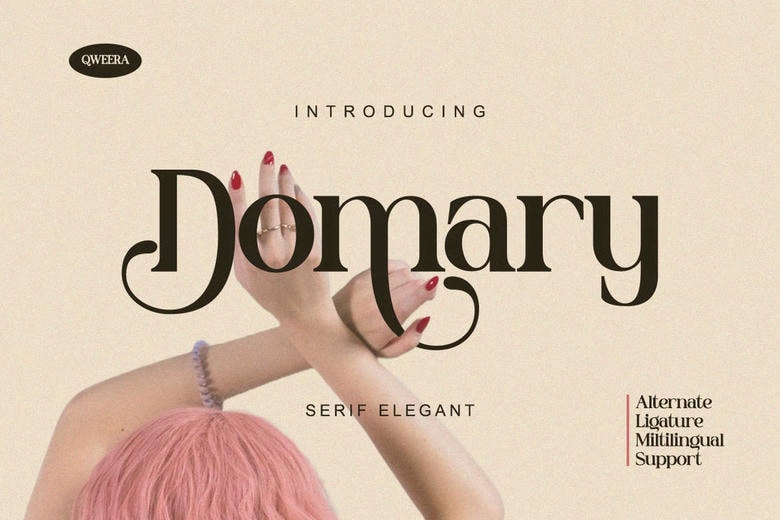
Domary Font
Domary is a stylish modern serif font with smooth flowing lines, elegant ligatures, and the slight decadence in each character. Designed with a feminine touch and stylish care, Domary excels in luxury branding, wedding emblem, magazine editorial and social media design.
It is a balance between soft gracefulness and professionalism that makes it a suitable choice of font when one wants to portray the beauty, tranquility, and sophistication through their type.
Domary Serif Font